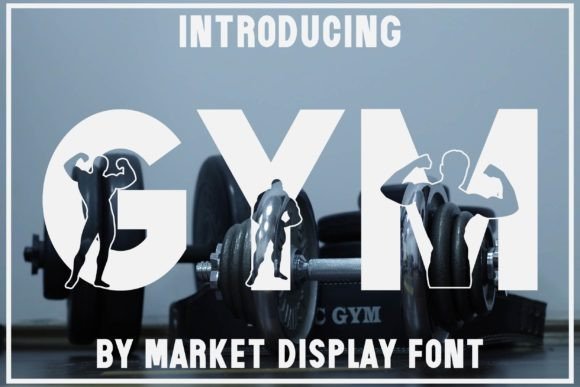
Get Ready to Sweat: The Power of Gym Font
You’re staring at a blank canvas, trying to come up with the perfect design for your new fitness blog. The words “motivation” and “inspiration” keep popping up, but something’s missing. That’s when you remember the Gym Font – a bold, eye-catching display font that screams energy and enthusiasm.
With its unique blend of modern and edgy elements, Gym Font is the perfect companion for any fitness or sports-related design. Whether you’re creating a poster for a marathon, a logo for a gym, or a social media graphic for a fitness influencer, Gym Font will help you make your message stand out from the crowd.
Gym Font Key Features
- Font Family: Gym Font is a unique sans-serif font designed specifically for fitness and sports-related applications.
- Character Count: Gym Font includes over 400 glyphs, including a wide range of Latin and Cyrillic characters.
- Unique Characteristics: Gym Font features a bold, modern design with a focus on readability and legibility, making it ideal for use in fitness and sports applications.
Gym Font Review
Overall, I was excited to dive into the Gym Font, a sans-serif typeface designed specifically for the fitness industry. Here’s my honest take on its strengths and weaknesses.
- The font’s clean lines and modern aesthetic make it perfect for modern gyms and fitness studios.
- The font is highly legible, even at small font sizes, which is a must for signage and digital displays.
- The font’s bold weights are great for creating a sense of energy and dynamism, perfect for highlighting key messages.
- The font’s limited character set and lack of support for non-Latin scripts may be a hindrance for gyms with diverse customer bases.
- The font’s design, while modern, may not be bold or attention-grabbing enough for some gyms that want to make a statement.
In conclusion, the Gym Font is a solid choice for gyms and fitness studios that want a clean, modern look. However, its limitations may make it less suitable for gyms with diverse customer bases or those on a tight budget.
Tips for Getting the Most Out of Gym Font
Use bold font styles to emphasize important text.
Use italics for quotes or emphasis.
Experiment with different font sizes to create visual hierarchy.
Combine Gym Font with other fonts to create a unique look.
Gym Font is perfect for:
Fitness and wellness branding
Sports and athletic design
Motivational quotes and posters
Fitness and nutrition websites and blogs.
Compared to Gym Font, Inter has a more refined feel and is more suitable for use in formal applications. While Gym Font has a more casual feel, Inter is more professional and elegant.